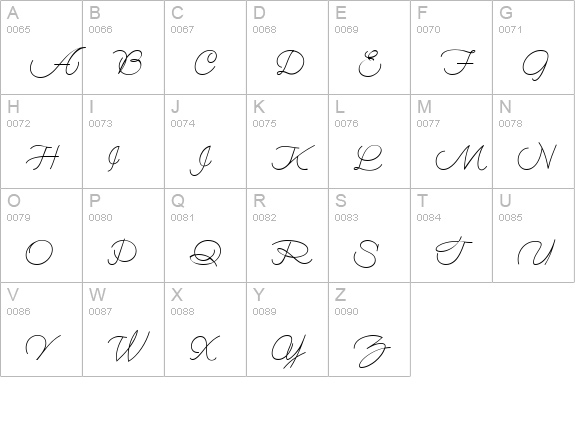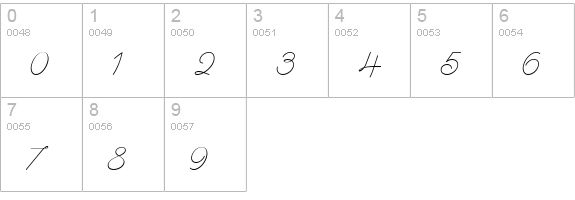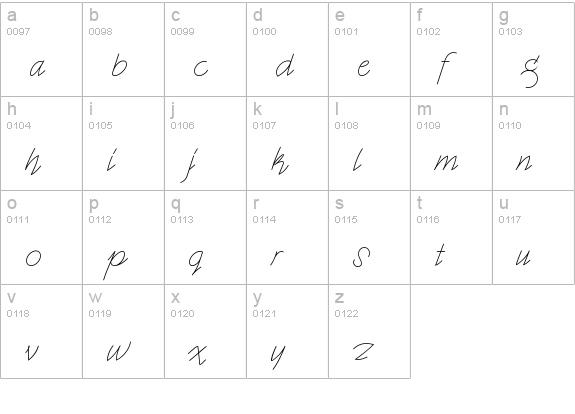
MyDearWatsonNF Font Details
Introducing MyDearWatsonNF font - a charming and elegant typeface perfect for adding a touch of sophistication to your designs. With its graceful curves and stylish letterforms, this font exudes a classic beauty that is sure to captivate your audience. MyDearWatsonNF font is not only visually appealing but also versatile, making it suitable for a wide range of design projects. Whether you're working on invitations, posters, branding materials, or any other creative endeavor, this font will elevate your work to new heights. The best part? MyDearWatsonNF font is completely free to download at FontsMarket.com. Yes, you read that right - you can add this beautiful font to your collection at no cost. Don't miss out on the opportunity to enhance your designs with this stunning typeface. Download MyDearWatsonNF font today and bring a touch of elegance to your projects!